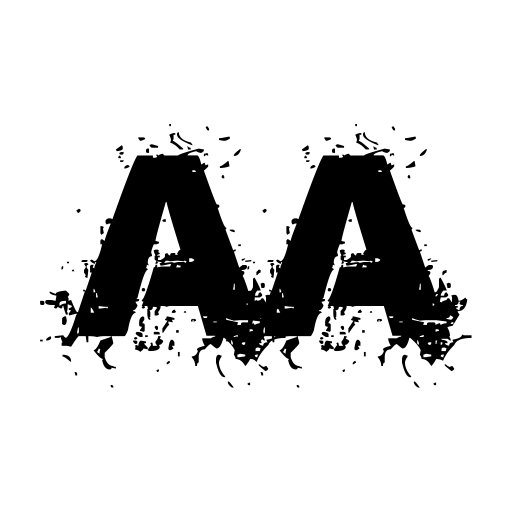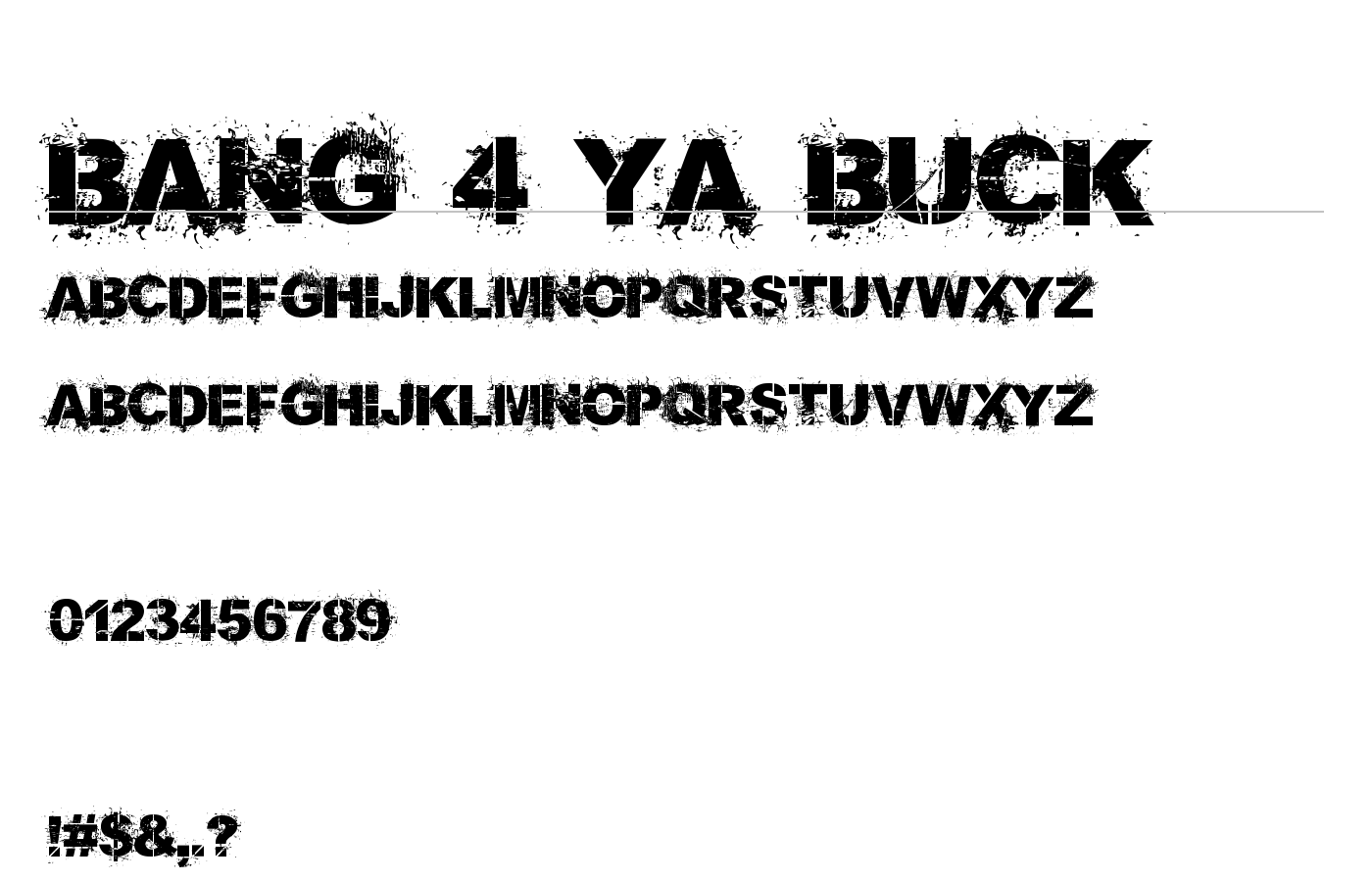
Bang 4 Ya Buck is a bold, sans serif display font characterized by its rough, distressed texture that gives it an edgy, rugged appearance. Its uppercase letterforms are strong and condensed, with a gritty, worn effect that makes it perfect for designs needing a rebellious, urban vibe. This font works well for posters, logos, and branding that seek to convey toughness and energy with a raw, street-style attitude.
Bang 4 Ya Buck Font
About Bang 4 Ya Buck Font